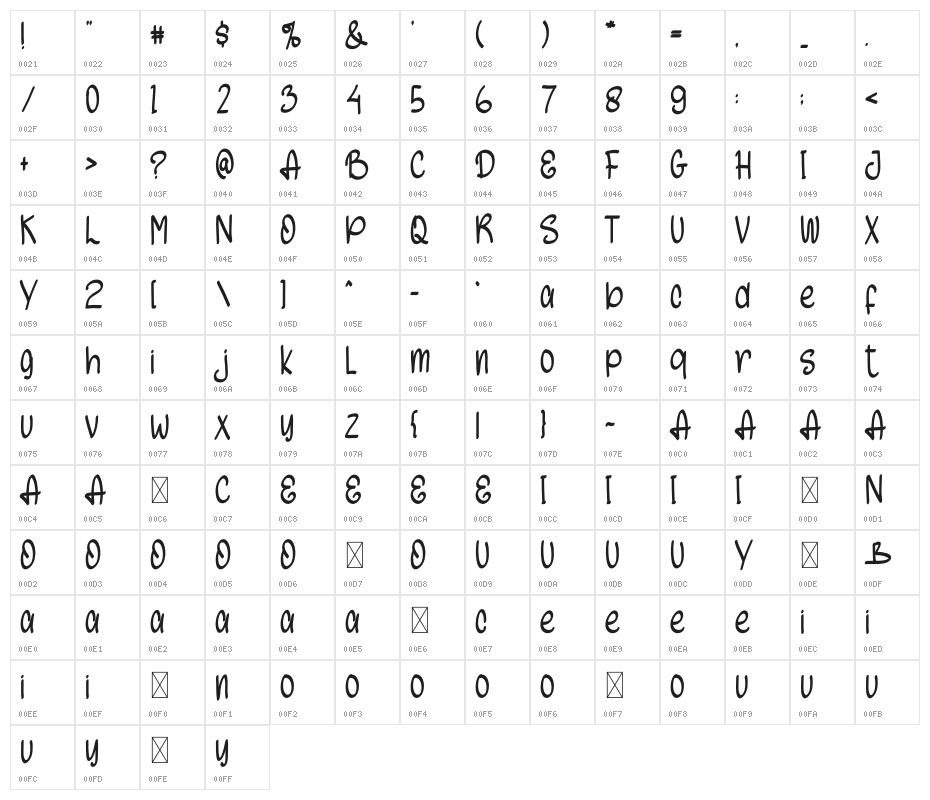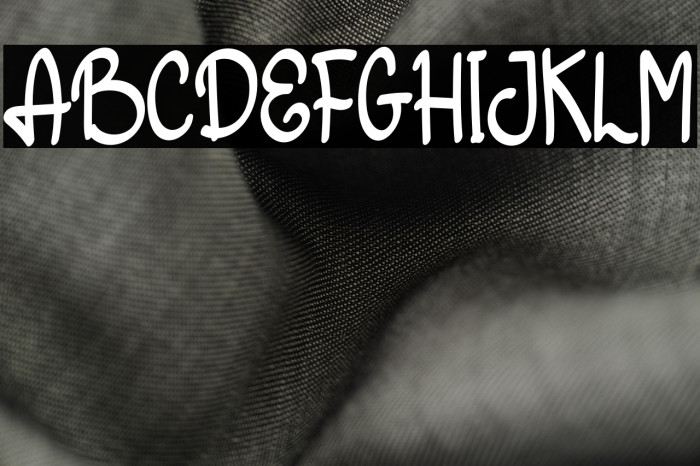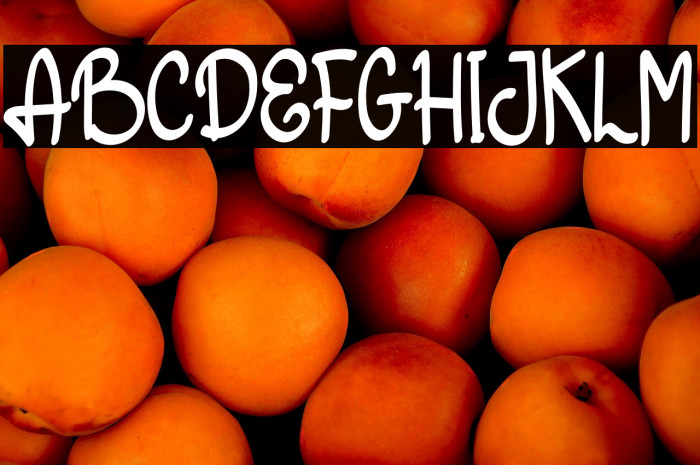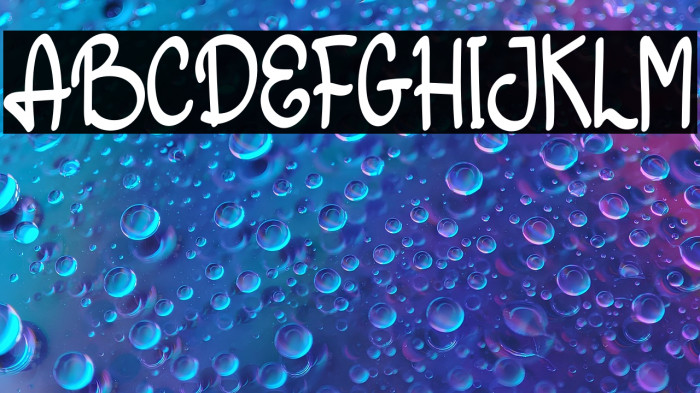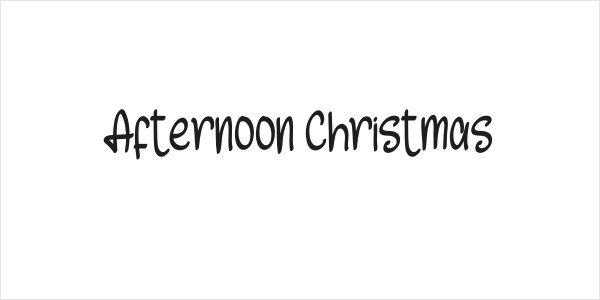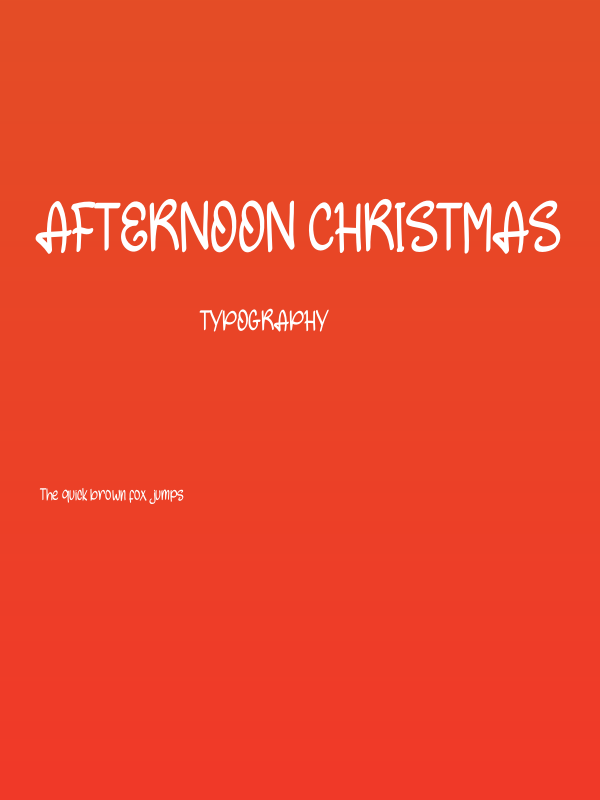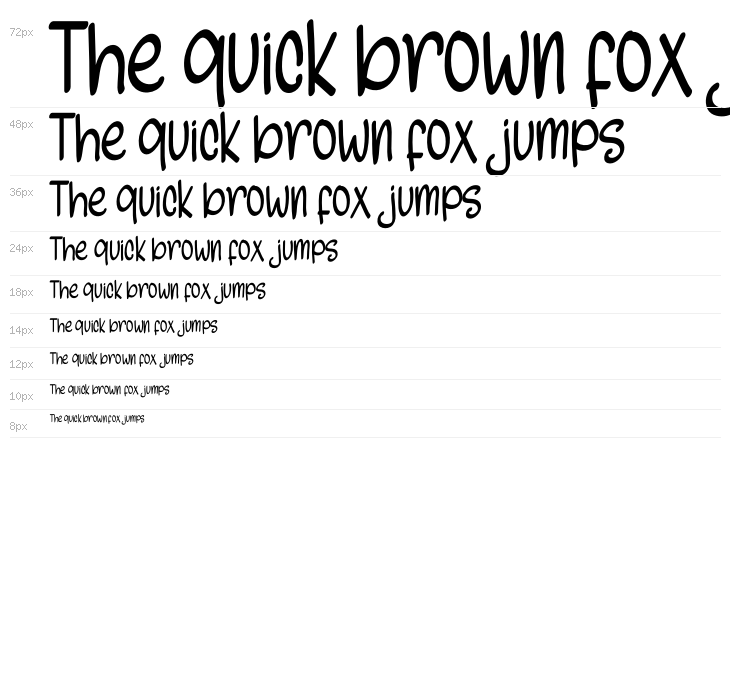
Afternoon Christmas Font
Afternoon Christmas Description
This font exudes a playful and whimsical charm, characterized by its handwritten style that mimics casual penmanship. The letters are rounded and slightly irregular, giving it a friendly and approachable appearance. The uppercase and lowercase letters maintain a consistent style, with a slight slant that adds to its informal nature. The numbers and special characters are crafted with the same playful aesthetic, ensuring a cohesive look across all elements. This font is perfect for projects that require a personal touch, such as greeting cards, invitations, or playful branding.
| Proposed Projects | Ideal for greeting cards, invitations, playful branding, and personal projects. |